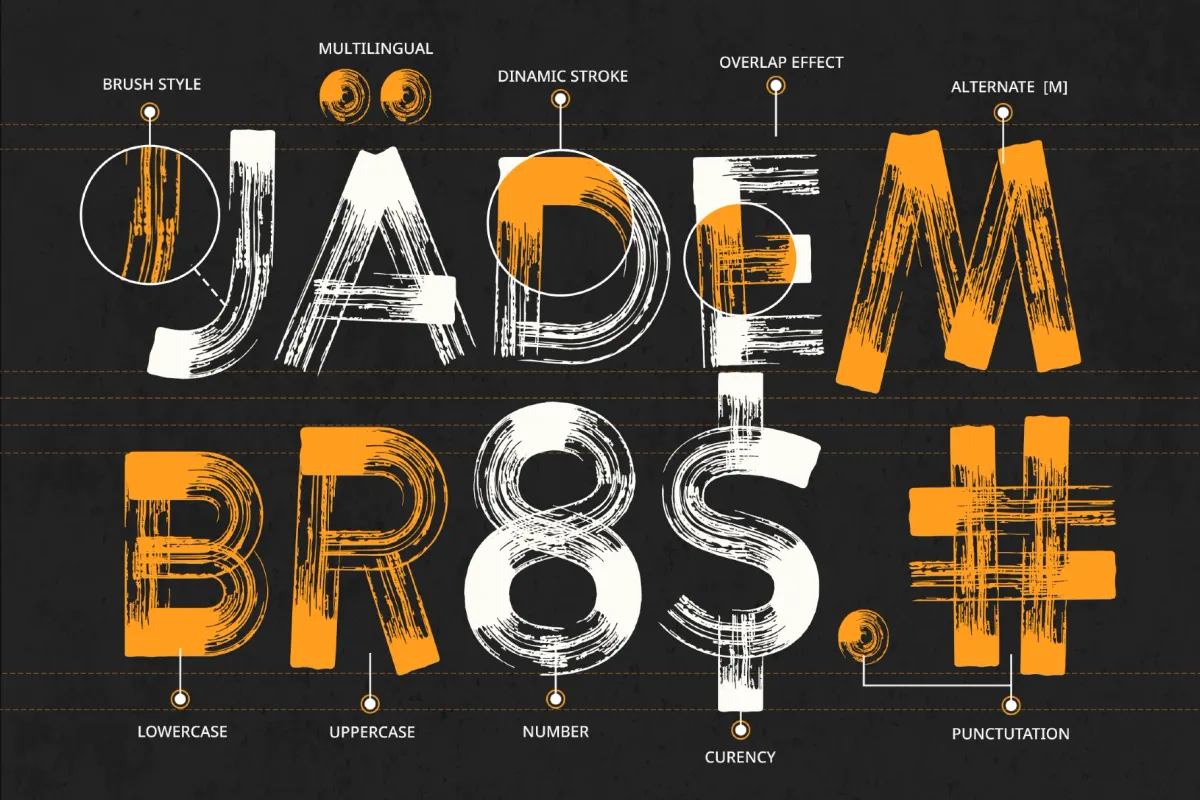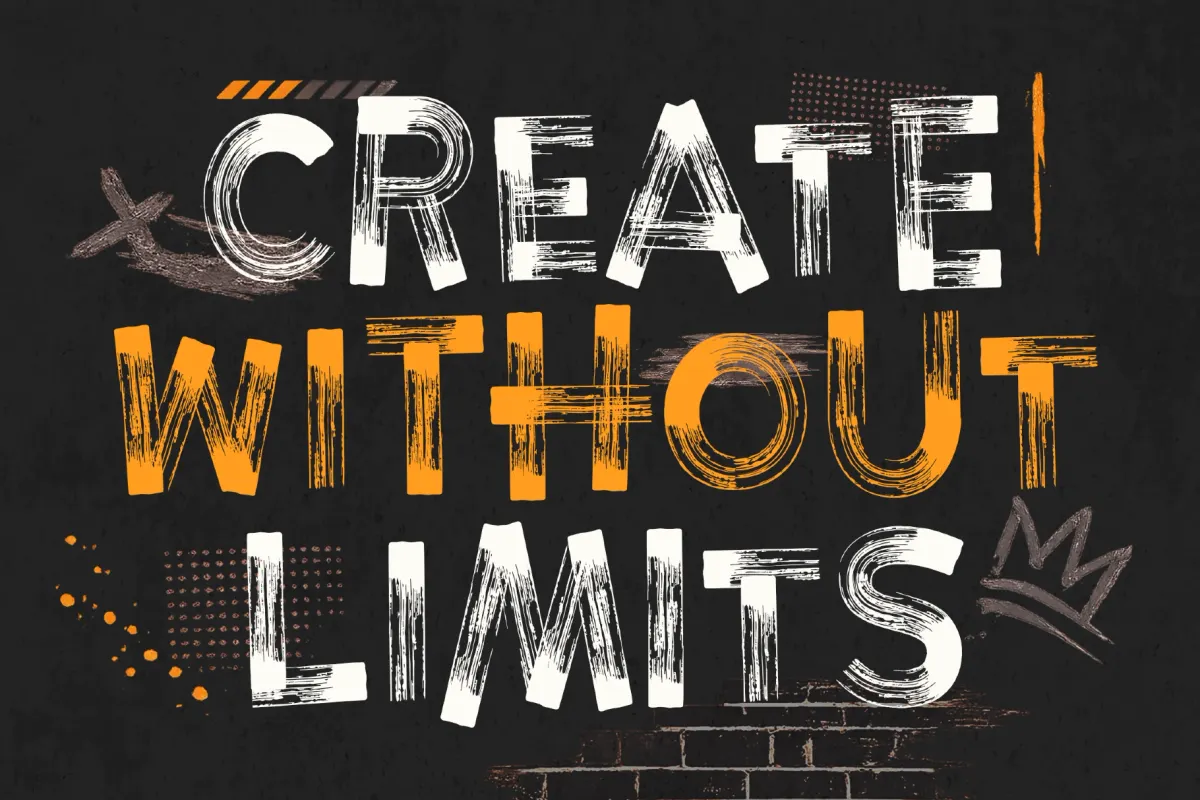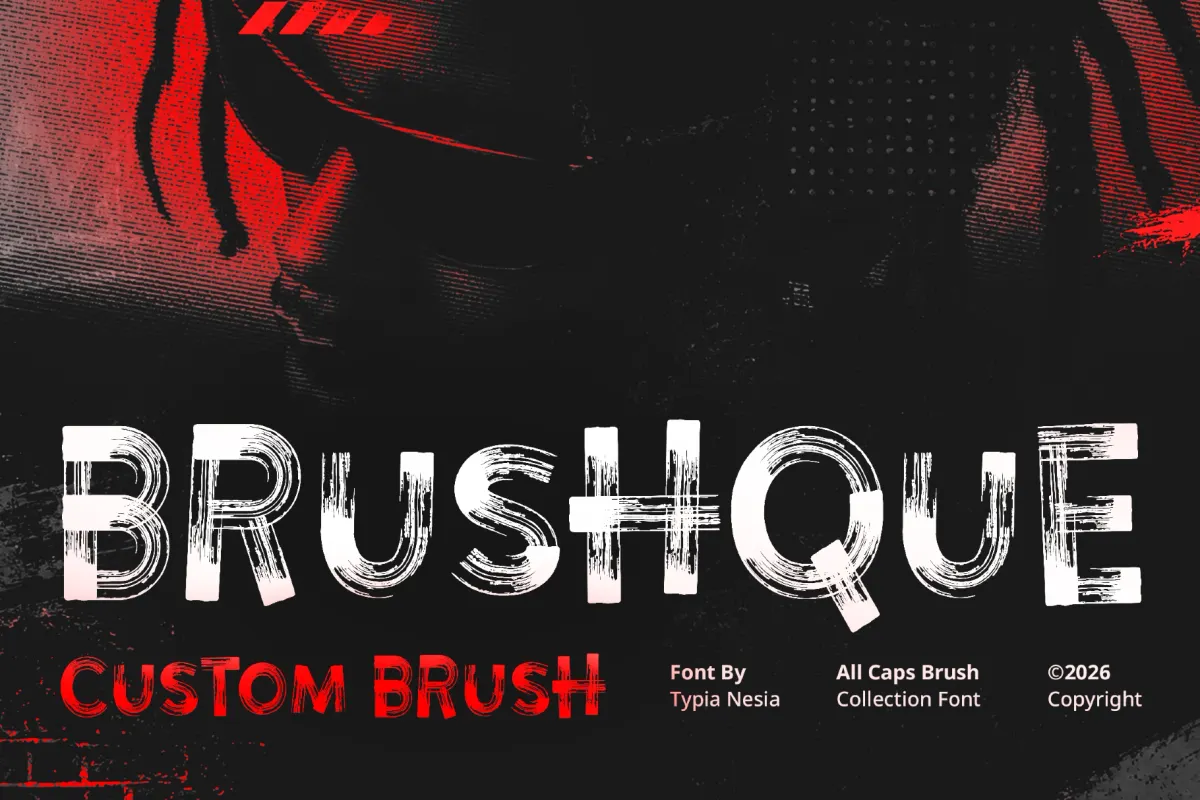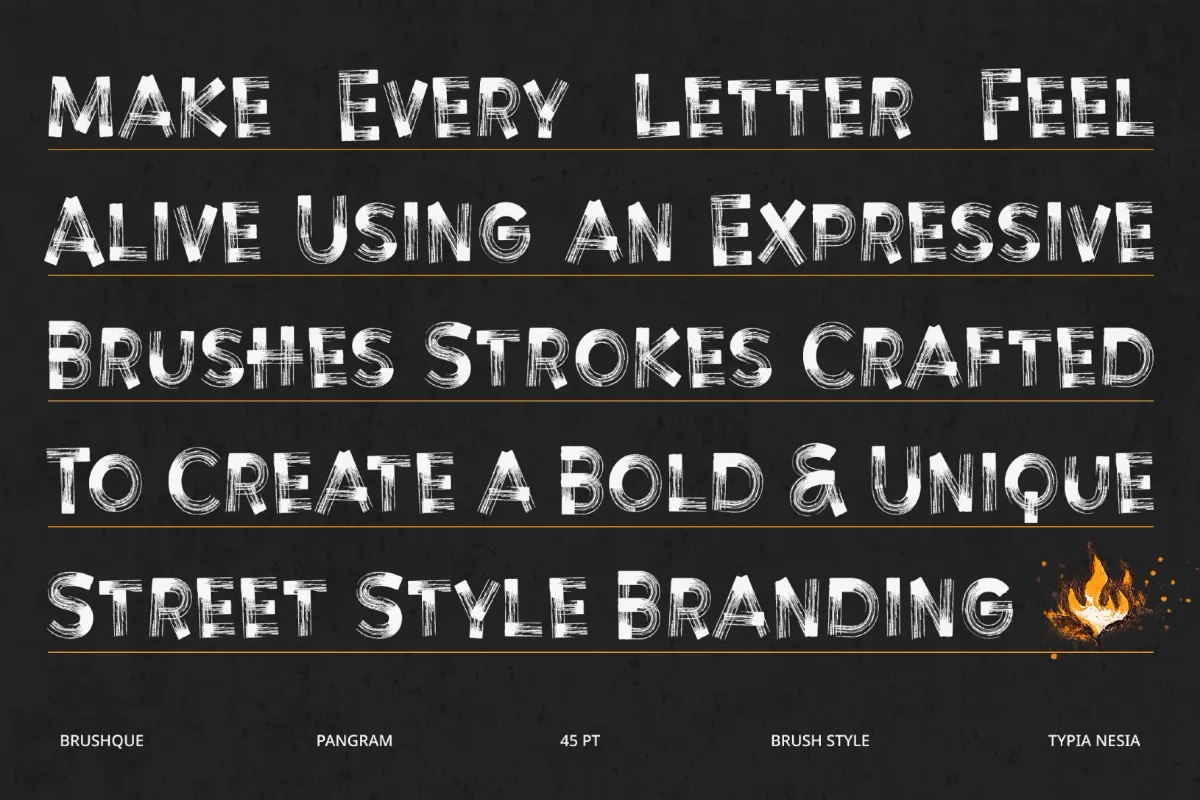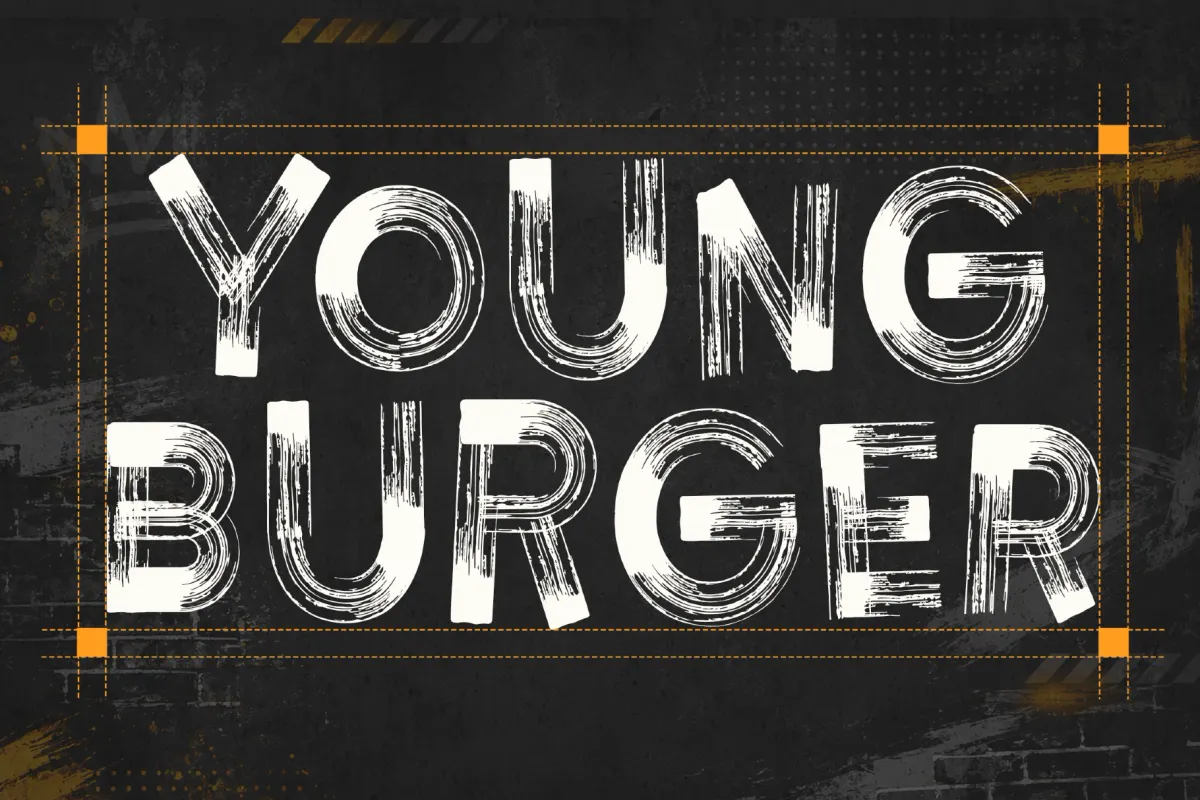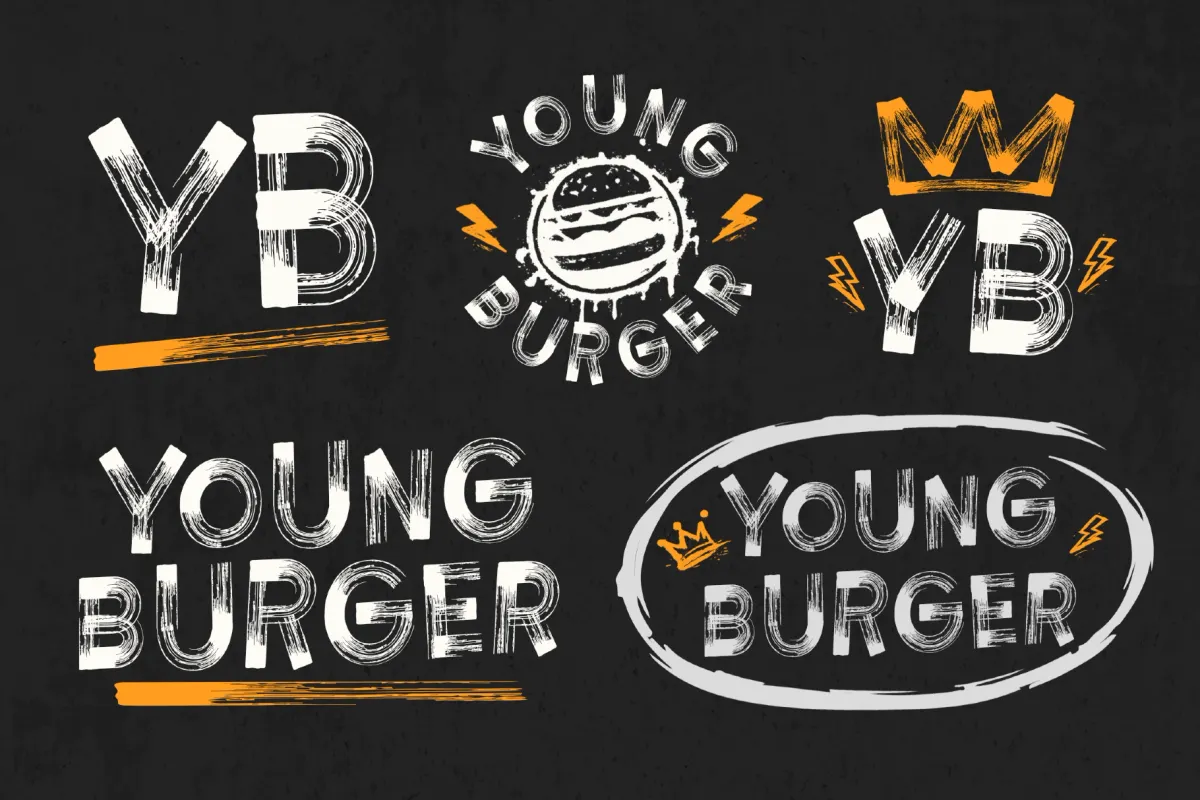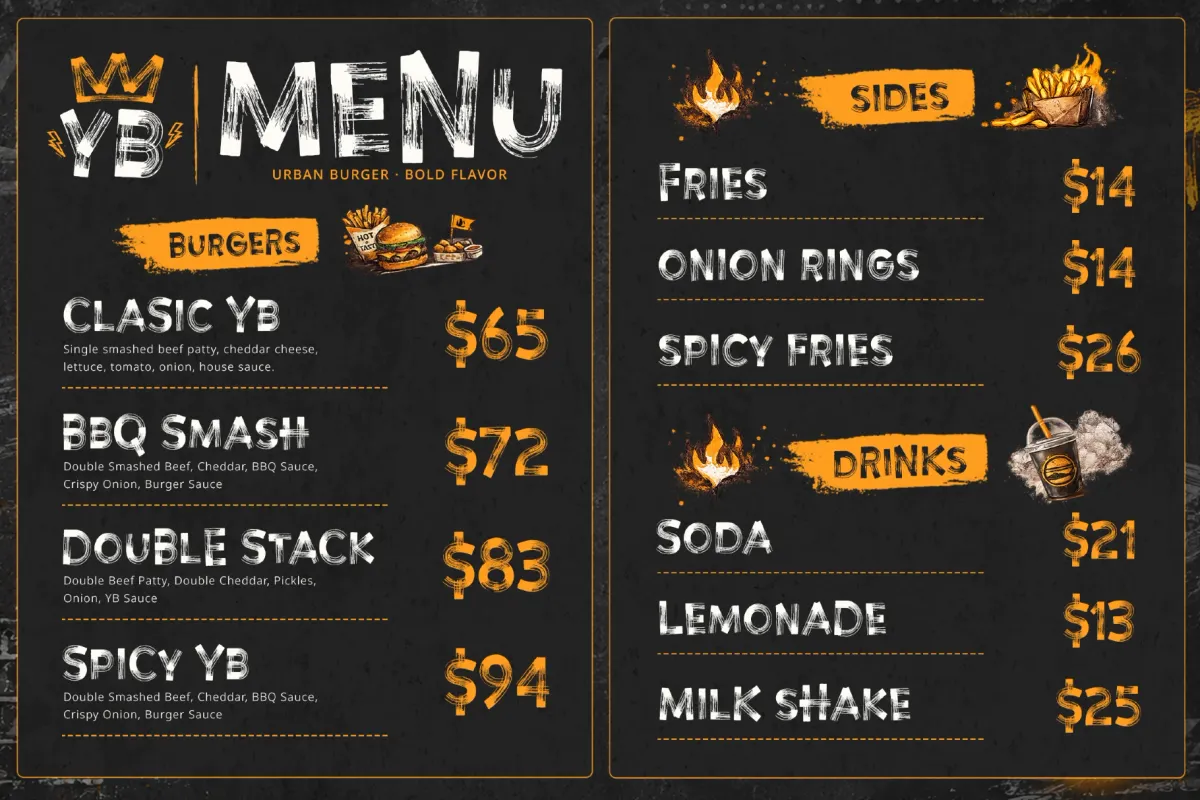
Brushque - Bold Dry Brush Street Font
Brushque runs on the drag and bristle-split of a dry brush pulled fast across rough paper, landing as a bold brush font built for headlines that need grit. Stroke weight shifts unevenly letter to letter, overlapping marks stay visible where strokes cross, and a stylistic alternate for the M swaps in a second brush pass for variety inside longer words.
At large sizes, the texture reads like a fast street-stencil pass; at smaller sizes, the brush marks still hold their shape without turning to mush. Use it for street food branding, boutique and band logos, gig posters, packaging labels, editorial headlines, album covers, advertising campaigns, social media graphics, and YouTube thumbnails.
- uppercase & lowercase;
- numerals, punctuation & currency symbols;
- stylistic alternates;
- broad Western, Nordic & Icelandic language coverage.